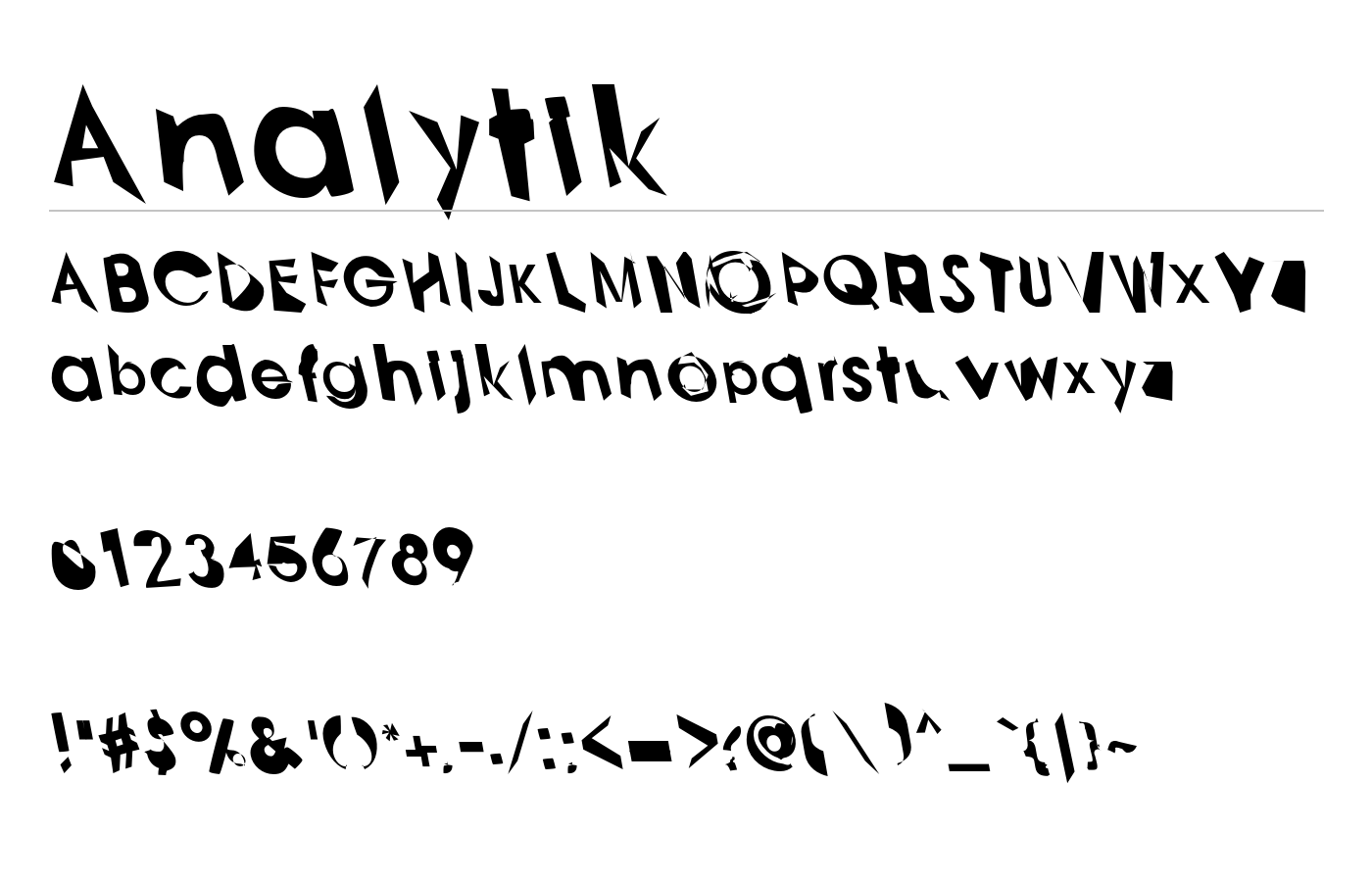
Analytik is a bold, irregular sans serif font with a sharp, fragmented style that creates a dynamic and edgy visual effect. Its uneven letterforms and strong contrast between solid and broken shapes give it a modern, experimental vibe perfect for attention-grabbing designs. This font works well in creative branding, posters, and headlines where a unique, expressive look is desired.
Analytik Font
About Analytik Font